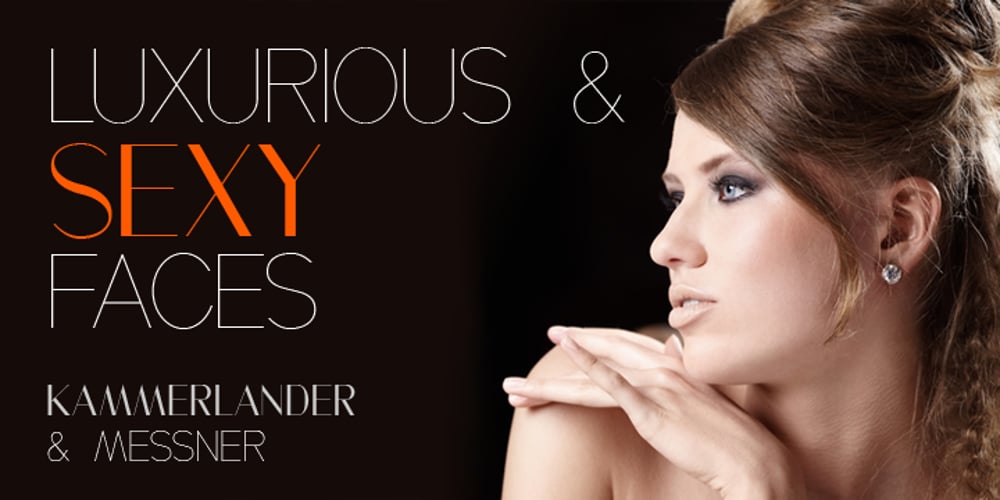
Messner Font Family was designed by Juraj Chrastina and published by Juraj Chrastina. Messner contains 1 styles and family package options. Hairline fonts are very clean, shining, elegant and even luxurious. They look great in fashion magazines, in the expansive world of beauty and glory. Messner is an extra-light all-caps face, especially suitable for larger sizes. Simplicity, purity and readability of its classic forms were on the first place in the creation process. Messner was a resource for designing the Kammerlander family and their combination looks very natural.